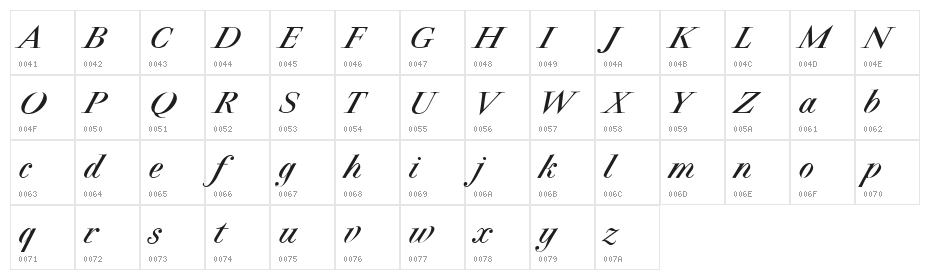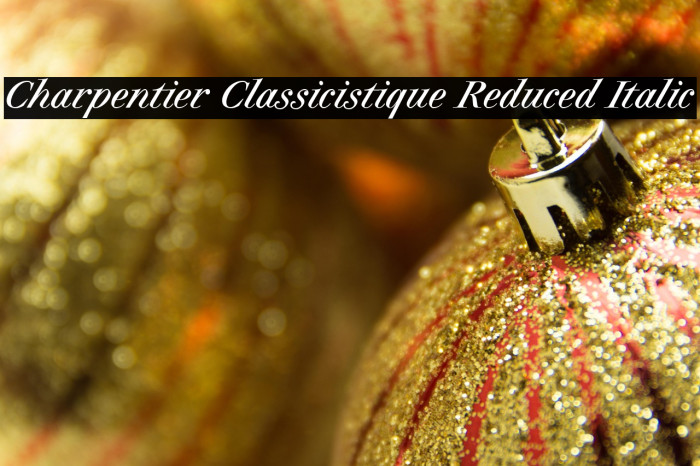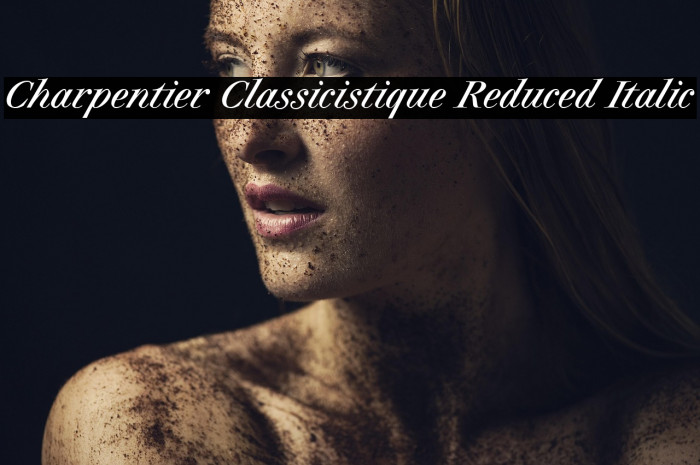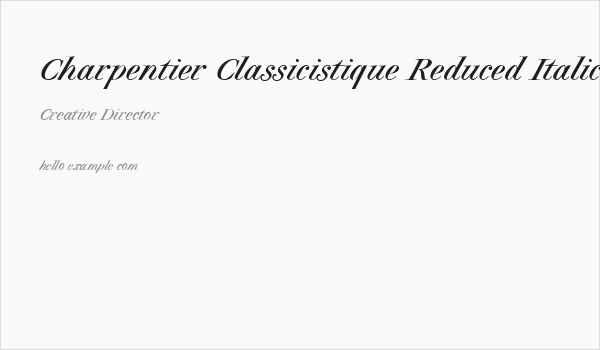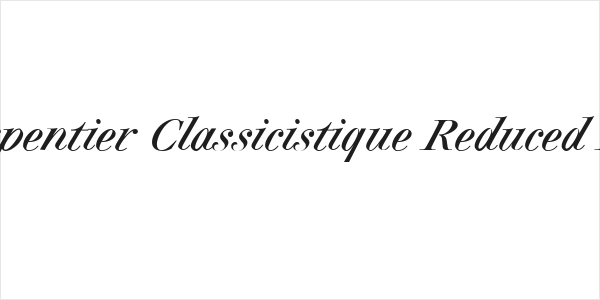
Charpentier Classicistique Reduced Italic Font
Charpentier Classicistique Reduced Italic Description
This font exudes a classic elegance with its flowing italic style, reminiscent of traditional calligraphy. The characters are gracefully slanted, adding a sense of movement and sophistication. The strokes are well-defined with moderate contrast, giving each letter a distinct presence. The uppercase letters are stately and refined, while the lowercase letters maintain a fluid and harmonious appearance. This font's design is both timeless and versatile, suitable for a variety of formal and creative applications.
| Use Case | Headlines, Invitations, Branding |
| Proposed Projects | Ideal for wedding invitations, formal event programs, elegant branding, and sophisticated editorial design. |